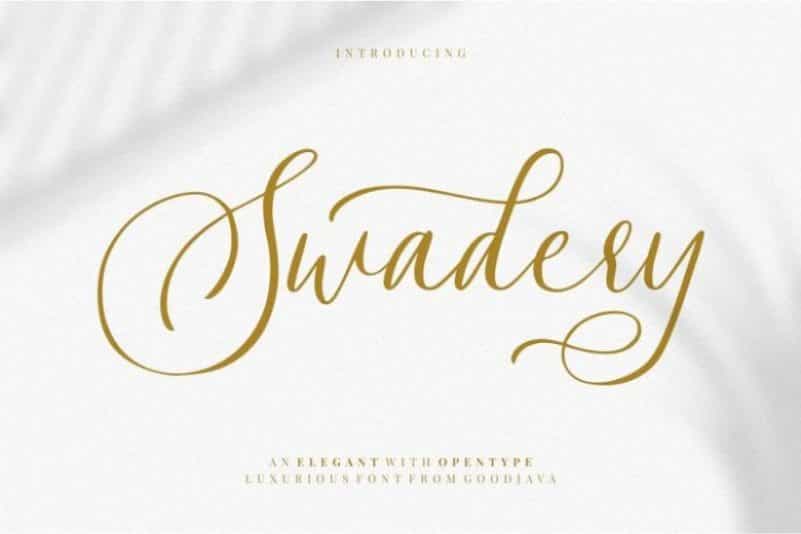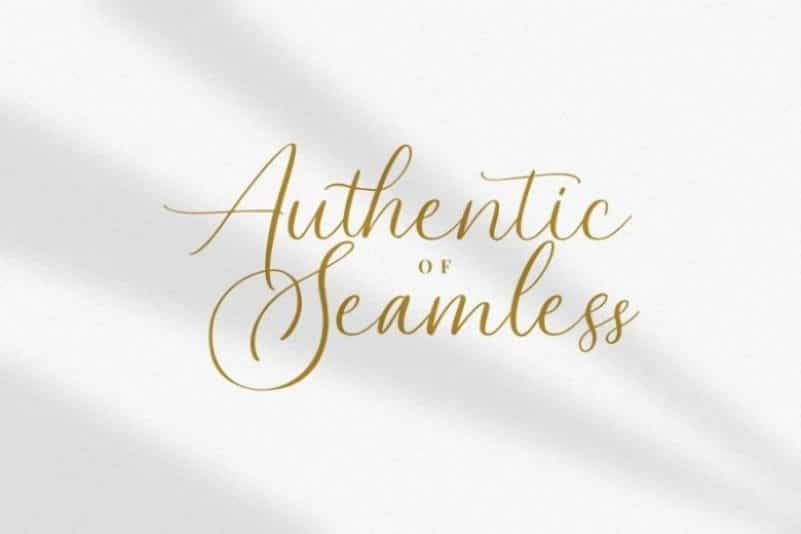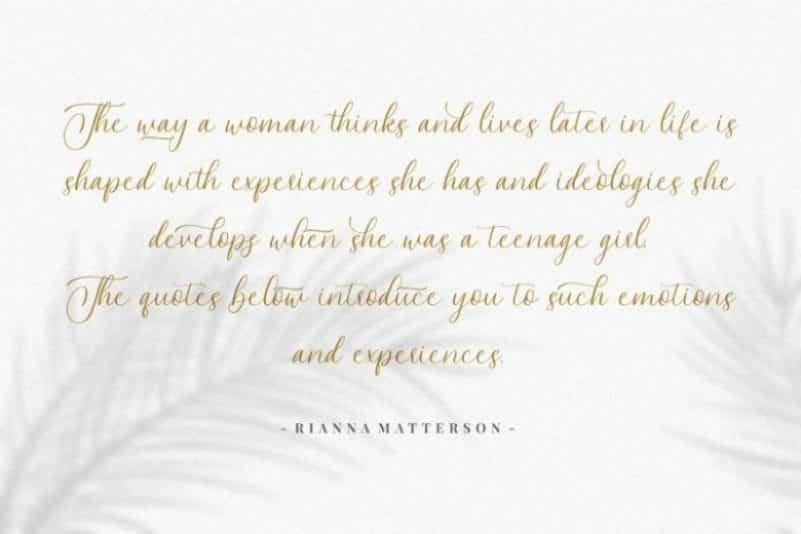
Discover Swadery Script Font, part of the Calligraphy collection—a versatile and unique font perfect for adding a personal touch to your projects. Download it for free and enjoy crafting designs with style, from invitations to social media posts. This font is available exclusively for personal use, giving you the freedom to create without limits. Unlock your creativity with Swadery Script Font today!
Swadery is another calligraphy script font, It is aimed at enhancing your design works in producing great designs. Swadery Font was created and released by the Good Java Studio. Swadery Luxury Script font is a font which is natural as well as modern which is in the category of handwritten font.